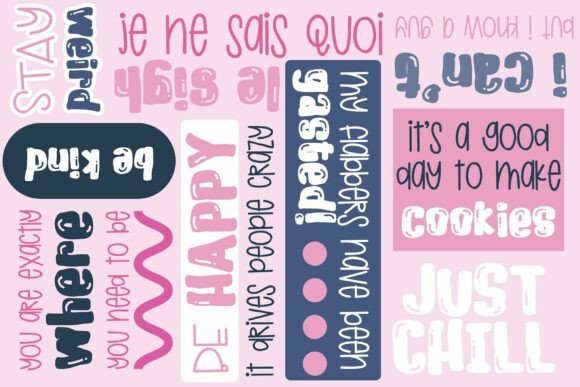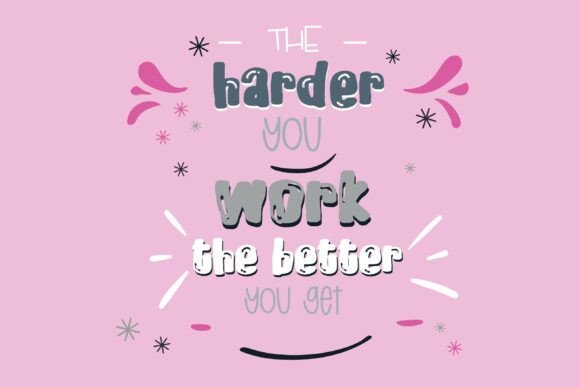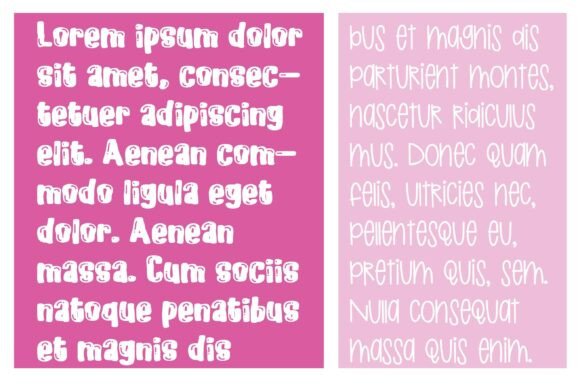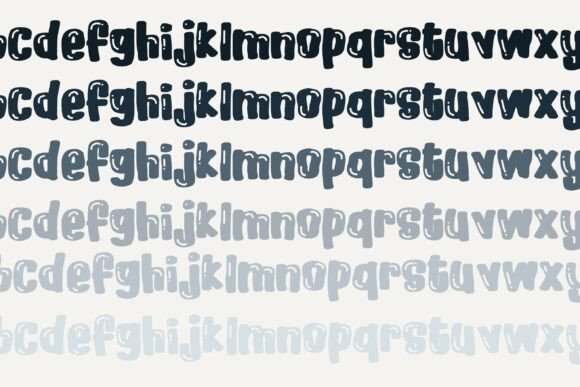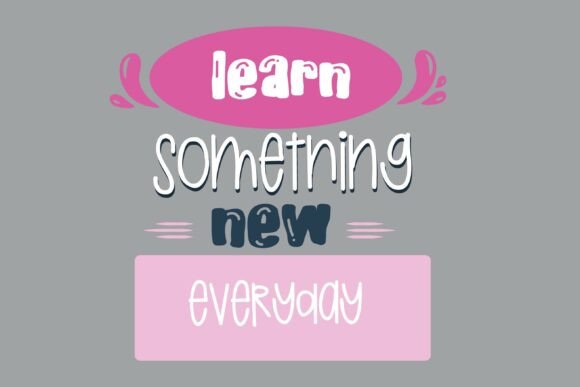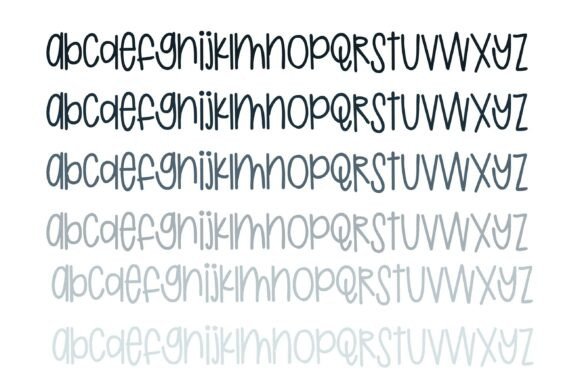
Bubblegum and Monkey Paw Duo Font: A Playful Pairing for Creative Projects
Are you looking for a font duo that embodies the spirit of childhood wonder and playfulness? Look no further than the Bubblegum and Monkey Paw duo font. This delightful pairing is perfect for designers and crafters seeking to add a splash of fun and whimsy to their creative projects. In this article, we’ll dive into the characteristics of these two fonts, their ideal uses, and why they’re a great choice for a variety of applications.
Meet Bubblegum: The Thick, Rounded Sans Serif
Bubblegum is a thick, rounded sans serif font that exudes a fun and bouncy vibe. Its chunky letters are perfect for creating eye-catching headlines, titles, and captions that demand attention. The rounded edges give Bubblegum a soft, approachable feel that’s ideal for designs aimed at a younger audience or for creating a playful tone in adult-oriented projects.
Meet Monkey Paw: The Quirky, Handwritten Complement
Monkey Paw is a quirky, handwritten font that complements Bubblegum perfectly. Its irregular strokes and childlike charm add a touch of whimsy to any design, making it perfect for adding a personal touch to creative projects. Monkey Paw’s handwritten feel is reminiscent of crayon or marker scribbles, making it an excellent choice for designs that require a playful, homemade aesthetic.
The Perfect Pairing: Bubblegum and Monkey Paw Duo
When paired together, Bubblegum and Monkey Paw create a match made in heaven. The bold, chunky letters of Bubblegum provide a sturdy foundation, while Monkey Paw’s playful, handwritten feel adds a touch of elegance and sophistication. This duo font is perfect for a wide range of applications, including:
• Kids’ designs: Bubblegum and Monkey Paw are a natural fit for designs aimed at children, such as children’s books, nursery rhymes, and kids’ party invitations.
• Birthday invitations: The playful, celebratory feel of this duo font makes it perfect for birthday invitations, party decorations, and other festive materials.
• Games and puzzles: The fun, energetic vibe of Bubblegum and Monkey Paw makes them an excellent choice for game titles, puzzle instructions, and other interactive materials.
• Playful branding: This duo font is also suitable for brands that want to convey a playful, youthful image, such as toy manufacturers, children’s clothing lines, or family-friendly restaurants.
Adding a Splash of Fun to Creative Projects
The Bubblegum and Monkey Paw duo font is designed to add a splash of fun to any creative project. With its mix of boldness and whimsy, this pairing is perfect for:
• School materials: Bubblegum and Monkey Paw can add a playful touch to school materials, such as worksheets, posters, and educational resources.
• Toy packaging: The fun, energetic feel of this duo font makes it perfect for toy packaging, making products stand out on store shelves.
• Anything that needs a cheerful, youthful voice: Whether you’re creating a brand identity, advertising materials, or social media graphics, Bubblegum and Monkey Paw can help you connect with your audience in a playful, engaging way.
Why Choose Bubblegum and Monkey Paw?
So why choose the Bubblegum and Monkey Paw duo font for your creative projects? Here are just a few reasons:
• Unique and playful: This duo font offers a fresh, playful take on traditional font pairings, making it perfect for designers and crafters looking to stand out.
• Versatile: Bubblegum and Monkey Paw can be used for a wide range of applications, from kids’ designs to playful branding.
• Easy to read: Despite their playful feel, both fonts are easy to read, making them suitable for body text and captions.
In conclusion, the Bubblegum and Monkey Paw duo font is a playful and versatile pairing that’s perfect for designers and crafters seeking to add a splash of fun to their creative projects. With its mix of boldness and whimsy, this duo font is sure to bring a smile to your audience’s faces. So why not give it a try and see how it can elevate your designs?